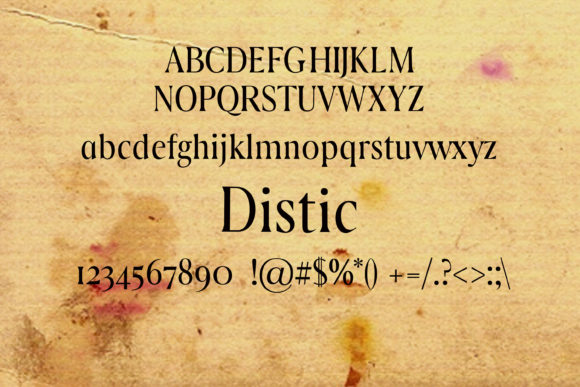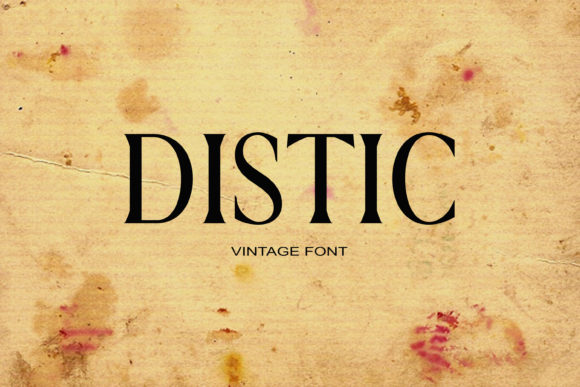
Distic Font: Elevate Your Designs with Sophistication and Elegance
Distic is a sophisticated and elegant serif font with a timeless look. Designed to bring a touch of luxury and refinement to any project, Distic Font has become a go-to choice for designers and crafters seeking to create stunning visual content. In this article, we’ll explore the features, benefits, and uses of Distic Font, and why it’s an excellent addition to your typography arsenal.
The Characteristics of Distic Font
Distic Font boasts a classic serif design, characterized by its slender lines, refined curves, and precise letter spacing. Its elegant appearance is reminiscent of traditional high-end publications, making it perfect for projects that require a sense of sophistication and poise. The font’s timeless look ensures that it won’t go out of style anytime soon, allowing you to create designs that will remain relevant for years to come.
Key Features of Distic Font
- Serif Design: Distic Font features a classic serif design, which adds a touch of elegance and sophistication to any project.
- Timeless Look: The font’s timeless appearance ensures that it will remain relevant for years to come, making it an excellent investment for designers and crafters.
- Slender Lines: Distic Font’s slender lines create a sense of refinement and luxury, perfect for high-end projects.
- Refined Curves: The font’s refined curves add a touch of elegance and sophistication, making it ideal for designs that require a sense of poise.
- Precise Letter Spacing: Distic Font’s precise letter spacing ensures that the text is easy to read, even at smaller font sizes.
Benefits of Using Distic Font
Using Distic Font in your designs offers several benefits, including:
- Enhanced Visual Appeal: Distic Font adds a touch of elegance and sophistication to any project, making it perfect for designs that require a sense of luxury and refinement.
- Improved Readability: The font’s precise letter spacing and refined curves ensure that the text is easy to read, even at smaller font sizes.
- Versatility: Distic Font is suitable for a wide range of projects, from print materials to digital content, making it an excellent addition to your typography arsenal.
- Timeless Appeal: The font’s timeless look ensures that it won’t go out of style anytime soon, allowing you to create designs that will remain relevant for years to come.
Uses of Distic Font
Distic Font is an excellent choice for a wide range of projects, including:
- Print Materials: Use Distic Font in print materials such as brochures, magazines, and business cards to add a touch of elegance and sophistication.
- Digital Content: Distic Font is perfect for digital content, including website headers, social media graphics, and email marketing campaigns.
- Branding and Identity: Use Distic Font to create stunning brand identities, including logos, letterheads, and packaging materials.
- Advertising and Marketing: Distic Font is an excellent choice for advertising and marketing materials, including billboards, posters, and flyers.
Distic Font is a sophisticated and elegant serif font with a timeless look. Its classic design, slender lines, refined curves, and precise letter spacing make it perfect for projects that require a sense of luxury and refinement. With its versatility, improved readability, and timeless appeal, Distic Font is an excellent addition to your typography arsenal. Whether you’re a designer or crafter, Distic Font is sure to elevate your designs and help you create stunning visual content.